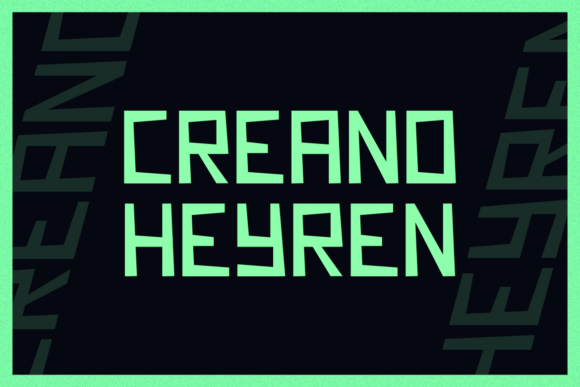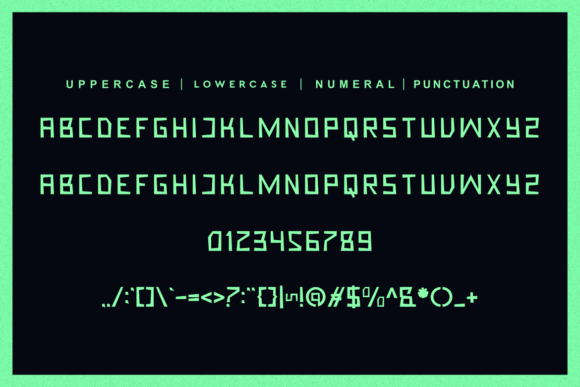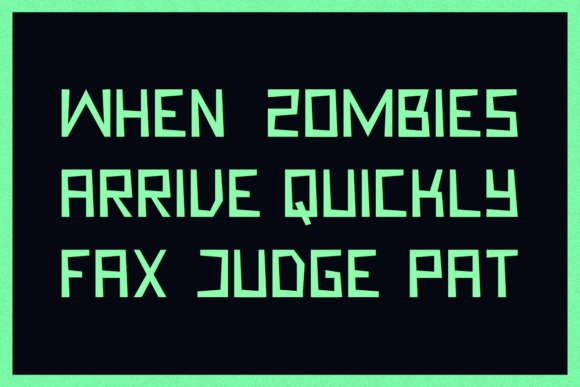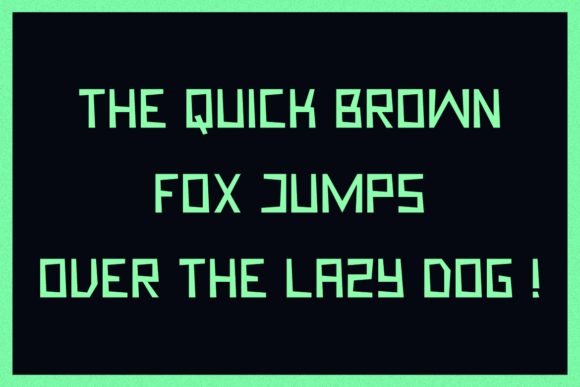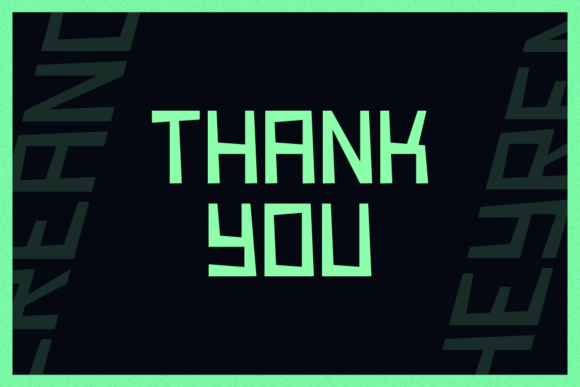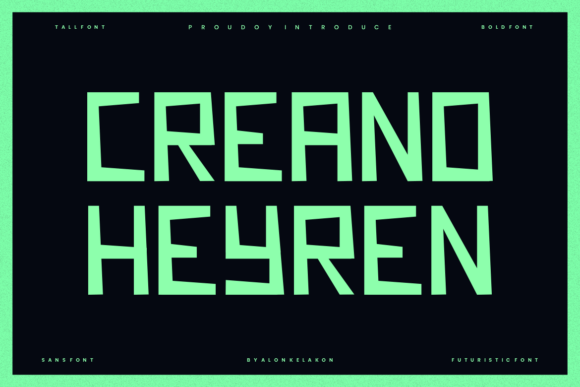
Introducing Creano Heyren Font: The Ultimate Choice for Bold and Playful Designs
In the world of typography, fonts play a crucial role in making or breaking a design. A font can elevate a project from ordinary to extraordinary, and Creano Heyren is one such typeface that can instantly add a touch of playfulness and modernity to any design. In this article, we’ll dive into the world of Creano Heyren, a futuristic font that’s perfect for designers and crafters looking to create eye-catching designs that stand out from the crowd.
What is Creano Heyren Font?
Creano Heyren is a bold and unique font that’s designed to make a statement. Its playful, futuristic letter shapes are perfect for designs that require a fresh and energetic look. The font’s clean lines and creative style make it an excellent choice for projects that need a modern and edgy vibe. Whether you’re working on a logo, brochure, or social media graphic, Creano Heyren is sure to grab attention and leave a lasting impression.
Key Features of Creano Heyren Font
- Playful and Futuristic Design: Creano Heyren’s unique letter shapes are designed to add a touch of playfulness and modernity to any design.
- Bold and Eye-Catching: The font’s bold style makes it perfect for designs that need to stand out from the crowd.
- Clean Lines and Creative Style: Creano Heyren’s clean lines and creative style make it an excellent choice for projects that require a fresh and energetic look.
- Multipurpose: The font is suitable for a wide range of design projects, from logos and brochures to social media graphics and more.
Who Can Benefit from Creano Heyren Font?
Creano Heyren is an excellent choice for designers, crafters, and businesses looking to create bold and eye-catching designs. Here are a few examples of who can benefit from this font:
- Graphic Designers: Creano Heyren is perfect for graphic designers who want to create unique and modern designs for their clients.
- Crafters and DIY Enthusiasts: The font is also suitable for crafters and DIY enthusiasts who want to add a personal touch to their projects.
- Small Businesses: Creano Heyren can help small businesses create a strong brand identity with its bold and eye-catching design.
- Marketing and Advertising Agencies: The font is perfect for marketing and advertising agencies looking to create attention-grabbing campaigns.
How to Use Creano Heyren Font?
Using Creano Heyren font is easy and straightforward. Here are a few tips to get you started:
- Pair it with Other Fonts: Creano Heyren looks great when paired with other fonts, especially sans-serif fonts.
- Use it for Headings and Titles: The font is perfect for headings and titles, where you want to make a bold statement.
- Experiment with Colors: Creano Heyren looks great in bold and bright colors, so don’t be afraid to experiment and find the perfect color scheme for your design.
In conclusion, Creano Heyren font is an excellent choice for designers and crafters looking to create bold and eye-catching designs. Its playful, futuristic design, clean lines, and creative style make it perfect for projects that need a fresh and energetic look. Whether you’re working on a logo, brochure, or social media graphic, Creano Heyren is sure to grab attention and leave a lasting impression. So why wait? Give Creano Heyren a try today and take your designs to the next level!